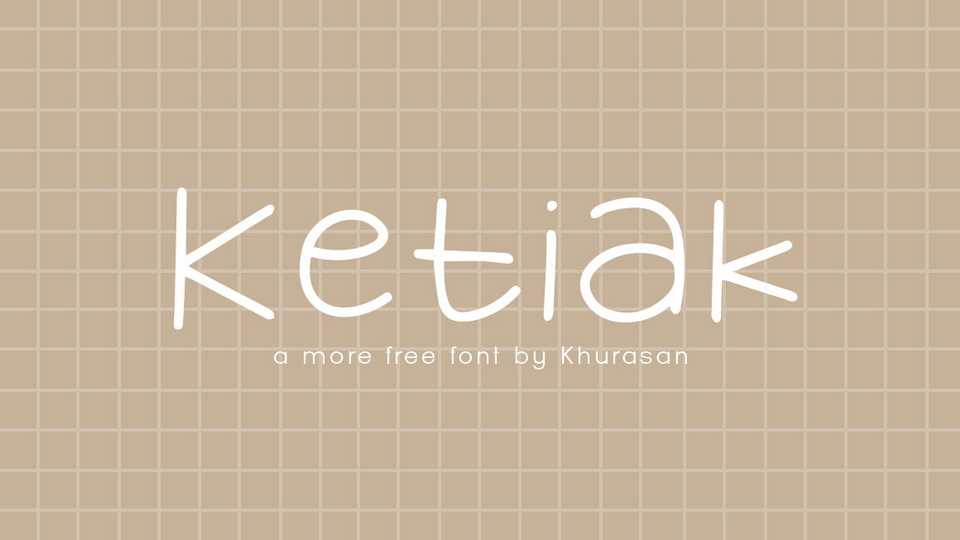
Download Ketiak font, a simple and cute handwriting typeface. Ketiak font is perfect for posters, logos, magazines, book covers, banners, and many more.